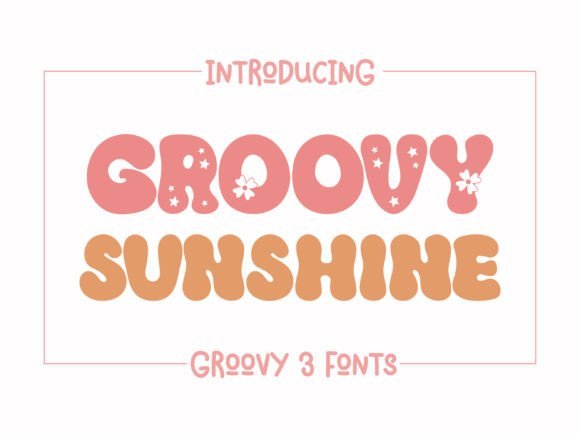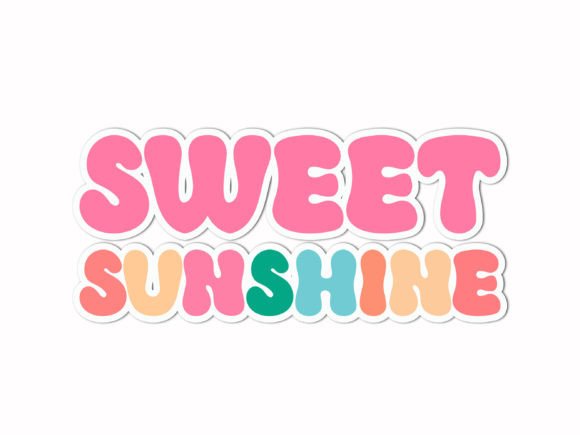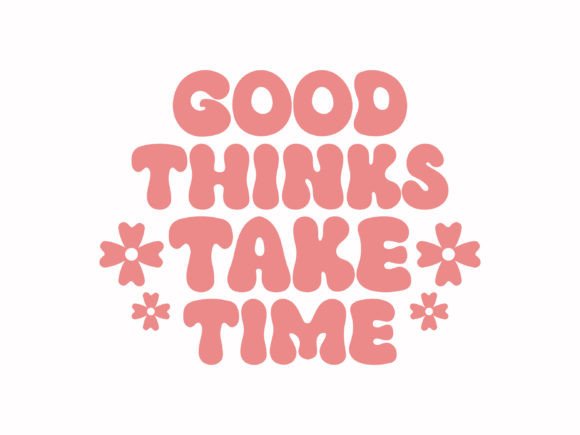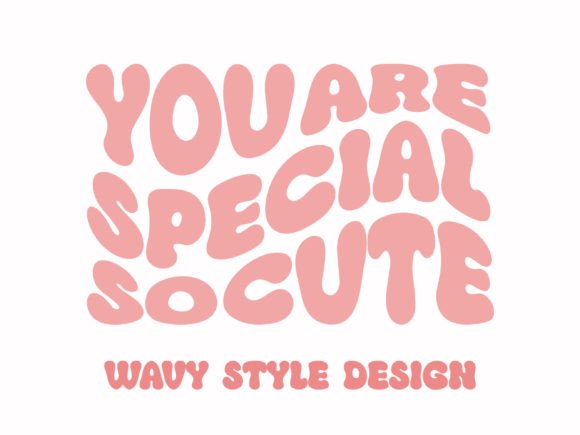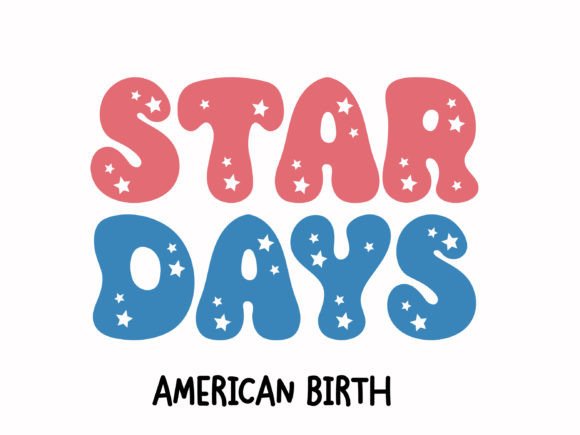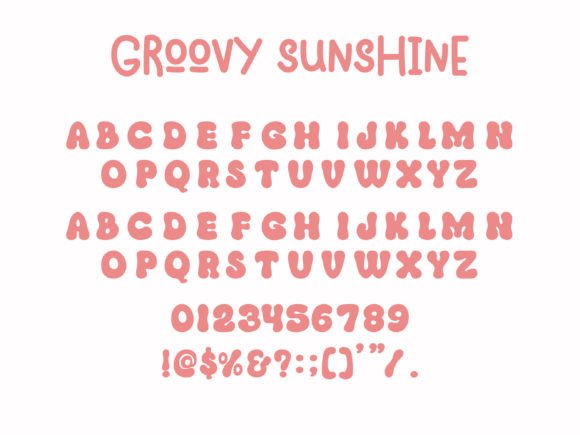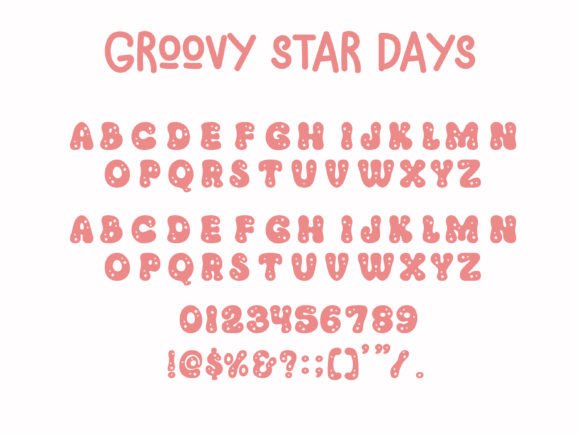
Adding a Groovy Touch to Your Designs
You’re browsing through vintage stores, flipping through old magazines, and suddenly, a bold, eye-catching font catches your eye. You can almost hear the sound of a vinyl record spinning in the background as you’re inspired by the retro vibes of the past. That’s exactly what happens when you work with the Groovy Sunshine Font – a fun and cute display font that’s sure to transport your designs back to the groovy era.
Whether you’re a seasoned designer or a creative enthusiast, the Groovy Sunshine Font is a valuable addition to your toolkit. With its bold typography and support for all English characters, this font is perfect for adding that special retro touch to any design project – from posters and t-shirts to planners and stickers.
So, get ready to unleash your creativity and add a dash of nostalgia to your designs with the Groovy Sunshine Font.
Groovy Sunshine Font Key Features
- Unique Characteristics: The Groovy Sunshine Font features a unique, hand-drawn design with a warm and sunny feel, perfect for creating a cheerful and inviting atmosphere in branding, advertising, and other design projects.
Designer Review: Groovy Sunshine Font
I recently had the chance to work with the Groovy Sunshine Font, and I must say it’s a unique addition to any design project. ✨ Here are some things that stood out to me:
- Playful and fun: The font has a distinct, carefree vibe that’s perfect for projects that need a little whimsy.
- Customizable: The font comes in various weights and styles, giving designers the flexibility to adapt it to their project’s needs.
- Perfect for creative industries: The Groovy Sunshine Font shines (pun intended) in creative fields like graphic design, advertising, and publishing.
However, like any font, it’s not perfect. ⚠️ Some limitations I encountered include:
- Readability: While the font is visually appealing, its compact structure can make it difficult to read at smaller font sizes.
- Limited legibility: The font’s unique style can sometimes make it hard to distinguish between similar letters, which can lead to errors.
Overall, the Groovy Sunshine Font is a fun and versatile addition to any designer’s toolkit. While it may have some limitations, its unique charm and customizability make it a great choice for projects that need a little extra personality.
Tips for Getting the Most Out of Groovy Sunshine Font
Here are some tips for getting the most out of Groovy Sunshine Font:
- Use the font for creative and playful designs.
- Pair the font with bold and bright colors to create a visually appealing design.
- Experiment with different font sizes and styles to add depth and interest to your design.